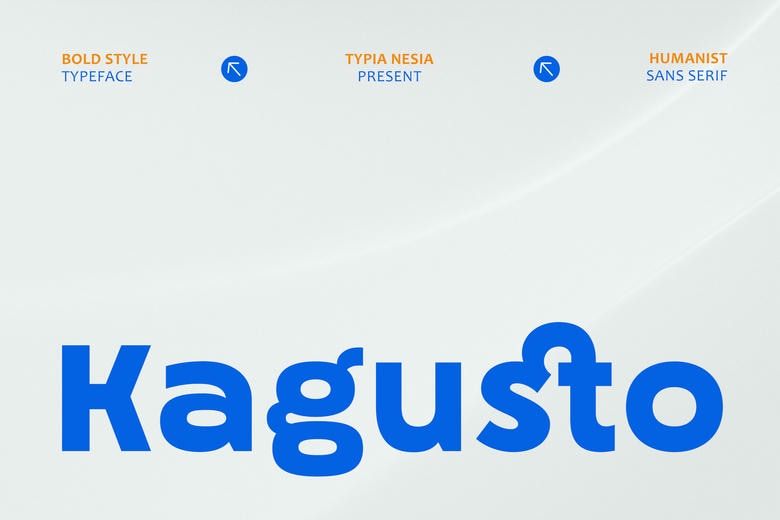
Kagusto Font
Kagusto is a contemporary bold sans serif font with a clean, strong and professional look and feel. Featuring a minimal and confident character, this font is ideal for logos, branding, corporate identity, advertising, headlines, packaging, startups or business, etc. Its bold structure and balanced proportions make Kagusto highly readable and keeping a contemporary and stylish appearance.
Ideal for sports branding and modern packaging design and professional marketing materials, Kagusto provides a powerful sans font aesthetic that enhances brand recognition and visual impact across the digital and print mediums.
Kagusto Sans Serif Font